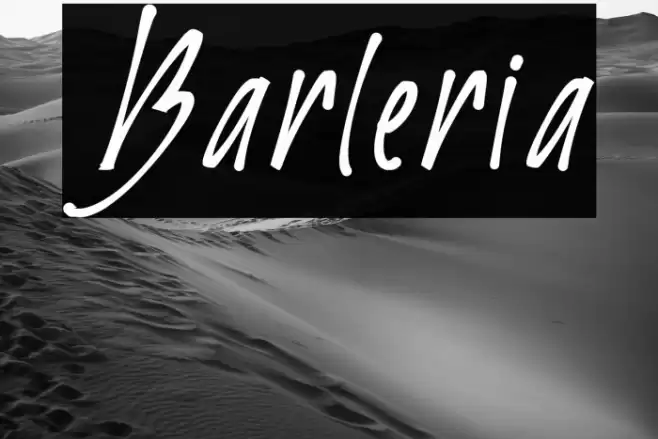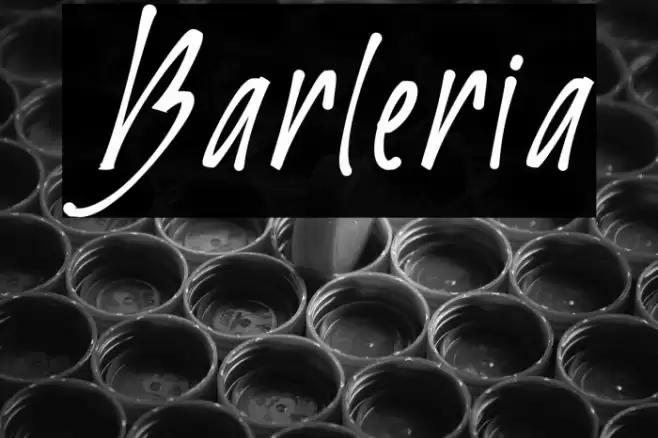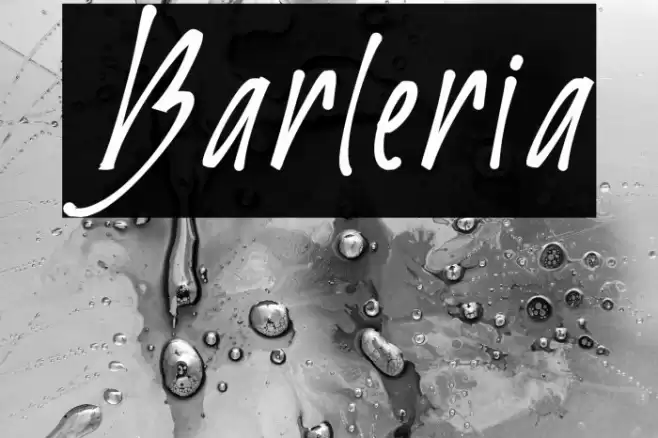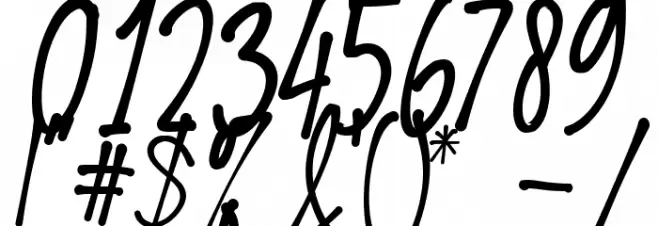
Barleria Font
Barleria Description
This font features a dynamic and expressive handwritten style, characterized by its fluid and slightly irregular strokes. The uppercase letters are tall and slender, with a slight slant that adds a sense of motion and personality. The lowercase letters maintain a consistent flow, with some characters extending below the baseline, enhancing its casual and approachable appearance. The numerals are bold and clear, ensuring readability. Special characters are creatively integrated, maintaining the overall aesthetic. This font exudes a modern, artistic vibe, making it suitable for creative projects.
A dynamic, handwritten font with fluid strokes and a modern, artistic vibe from Regular fonts.
- Overall Style: Modern, Artistic
- Use Case: Logos, Headlines, Creative projects